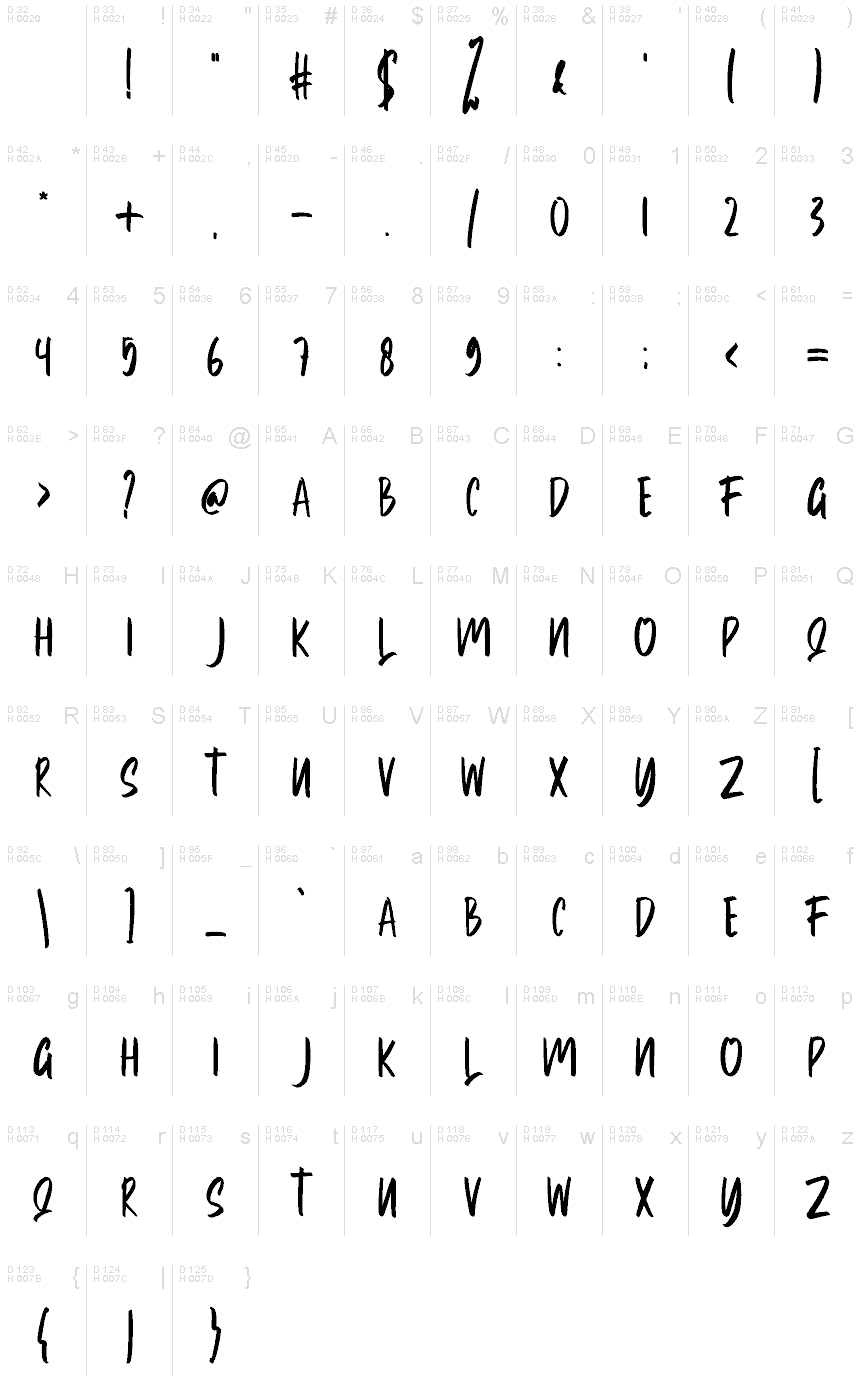
Frogs
Frogs font is a handwritten condensed font from Skiiller Studio. Expressive and casual, the modern characters take on a partially natural look similar to those of brush fonts. Dark strokes with roughened edges are one important factor that adds an energetic vibe typical present in other engaging scripts.